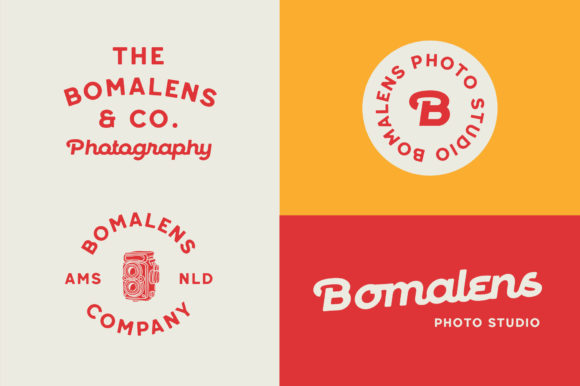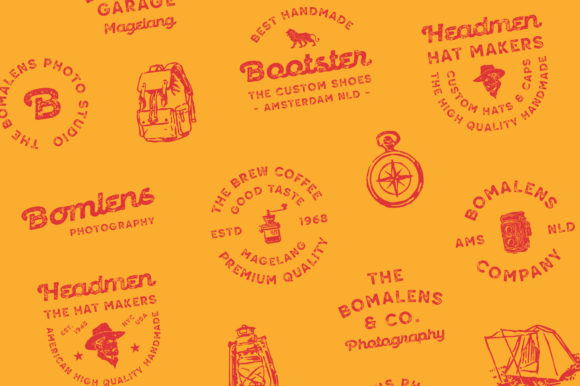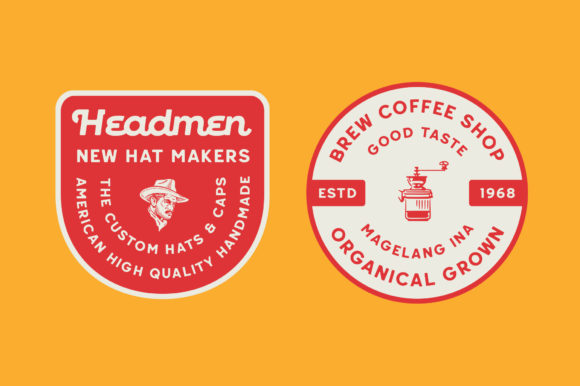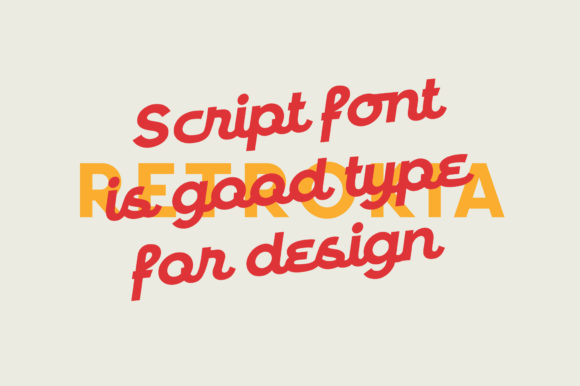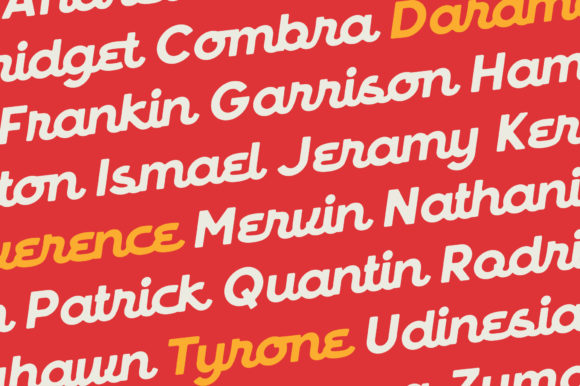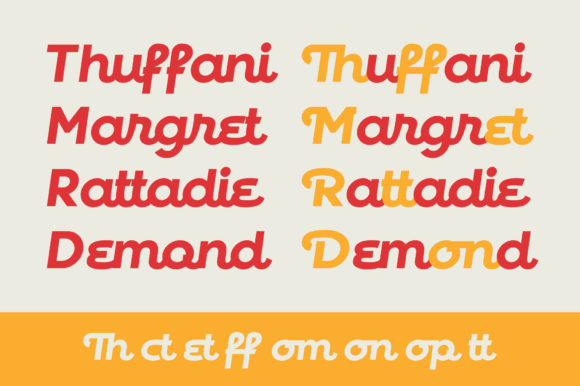
Introduction to Retrokia Font
You know that feeling when you’re working on a creative project and you just can’t seem to find the right font to bring your design to life? You scroll through countless options, but nothing seems to capture the essence of your vision. That’s when you stumble upon Retrokia Font – a bold and dynamic duo font that adds a touch of nostalgia to any design.
With its confident and strong feel, Retrokia Font is a game-changer for designers looking to add some extra oomph to their work. Whether you’re creating a logo, typography-based design, or just need a high-quality font for a transparent background, Retrokia Font is a valuable design resource that’s sure to impress.
Key Features of Retrokia Font
- Retro-inspired aesthetic with a vintage flair, making it perfect for creative projects and designs.
- High-quality font with a crisp, clear design that’s ideal for print and digital applications.
Honest Review: Retrokia Font
I recently had the chance to work with the Retrokia Font, and I’m excited to share my thoughts on this design resource. As a designer, I’m always on the lookout for high-quality fonts that can elevate my creative projects.
The Retrokia Font is a stylish, retro-inspired font that’s perfect for adding a touch of nostalgia to your designs. One of the things that really stood out to me was the transparency of the font, which makes it easy to work with a transparent background.
- ✨ Unique and stylish design
- ✨ High quality, crisp and clear font
That being said, I did encounter a few limitations with the Retrokia Font. For example:
- ⚠️ Limited font sizes and styles available
- ⚠️ Not ideal for large-scale text, as it can become difficult to read
Overall, I was really impressed with the Retrokia Font, and I would definitely recommend it to designers looking for a high-quality, retro-inspired font. Just be aware of the limitations, and use it wisely in your creative projects.
Tips for Getting the Most Out of Retrokia Font
For a seamless design experience, use the Retrokia Font with a transparent background to create a cohesive look. Experiment with different font sizes and styles to add visual interest to your project.
The Retrokia Font is perfect for designing posters, social media graphics, and brochures. Its high-quality design makes it an excellent choice for creative projects that require a professional touch.